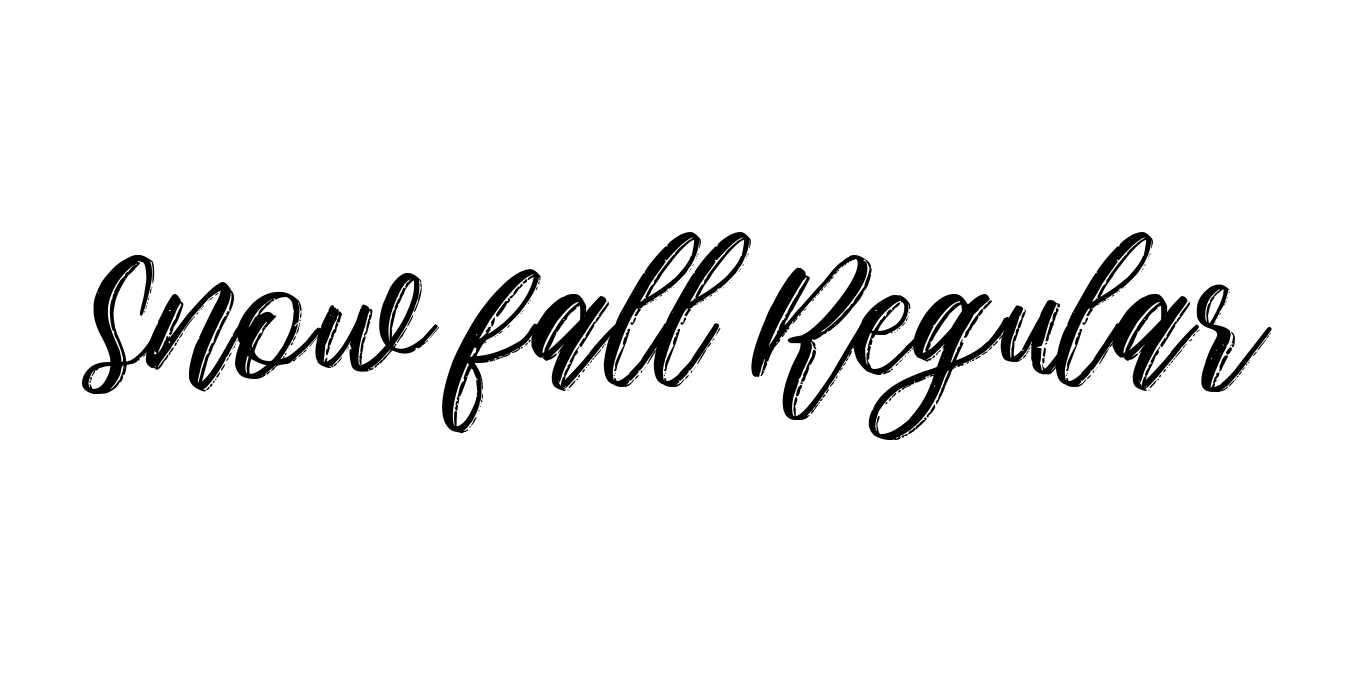
Snow fall Regular
Designed by Billy Argel
| Font Name | Snow fall |
| Category | Decorative Script |
| Designer | Billy Argel |
Snow fall Regular was developed as a specialized display typeface designed to evoke the organic, whimsical nature of winter landscapes. Originating from the boutique foundry of Billy Argel, this font joined a collection of seasonal scripts that prioritize character and thematic consistency. Its development focused on providing a hand-lettered aesthetic that bridges the gap between formal calligraphy and casual brush-work, making it a staple for holiday-themed design projects since its release.
Technically, Snow fall Regular exhibits a balanced visual weight with a generous x-height, enhancing its legibility in display contexts. The letterforms are defined by rounded terminals and a rhythmic, fluid motion that prevents the design from feeling static. While the font features decorative flourishes, the designer has carefully managed the counter-spaces to ensure that the script remains readable. This typeface performs exceptionally well in headline treatments where the tight tracking reinforces its cohesive, illustrative quality.
Snow fall Regular Best Uses
Perfect for seasonal logos and winter-themed product packaging.
Adds a personal, hand-written touch to invitations and holiday messages.
Ideal for eye-catching Instagram graphics and winter sale banners.